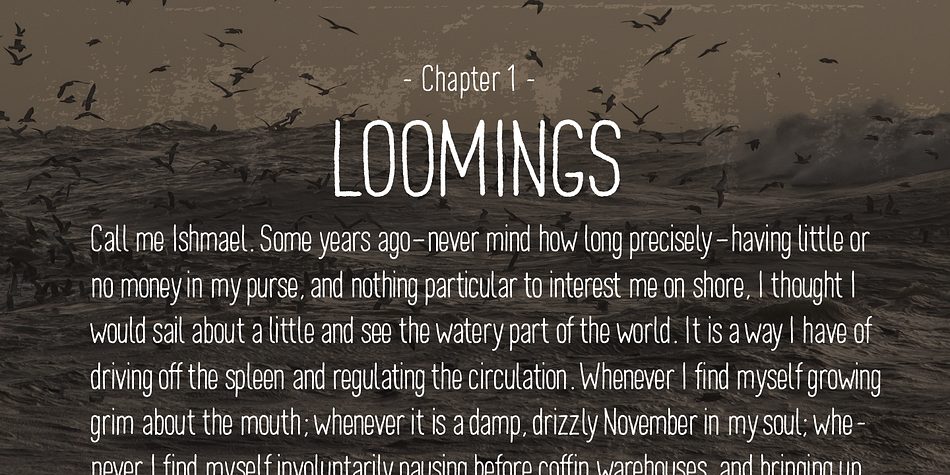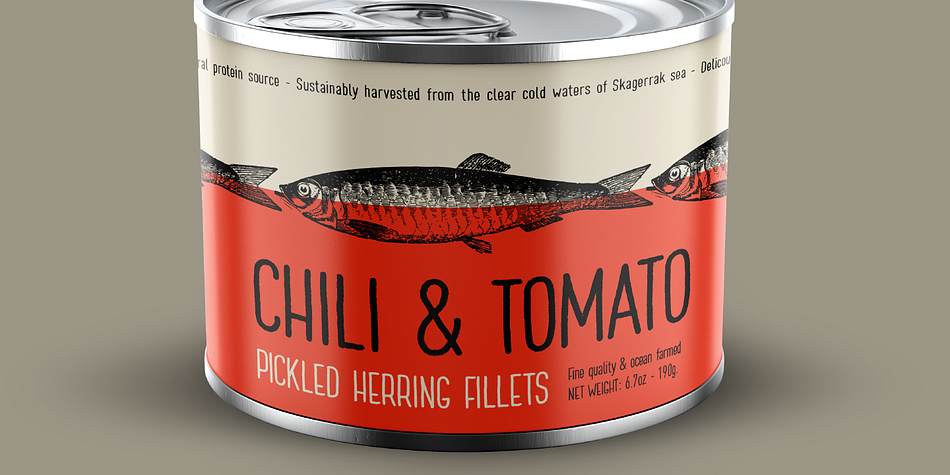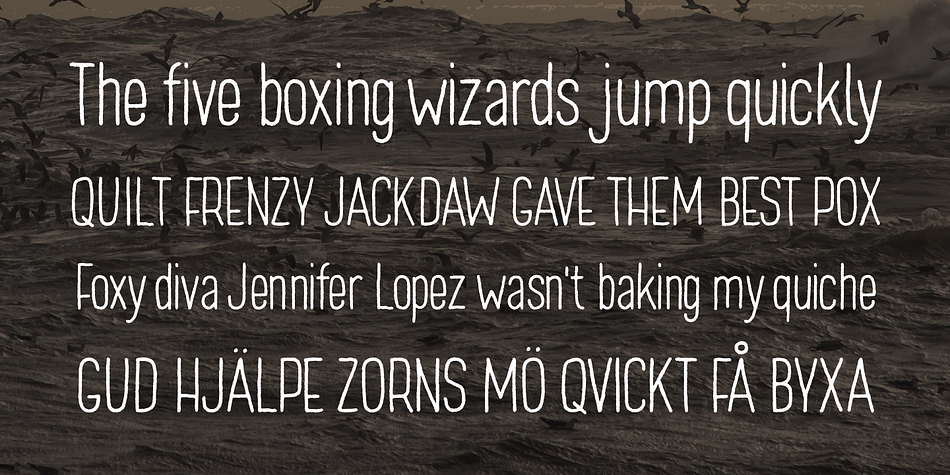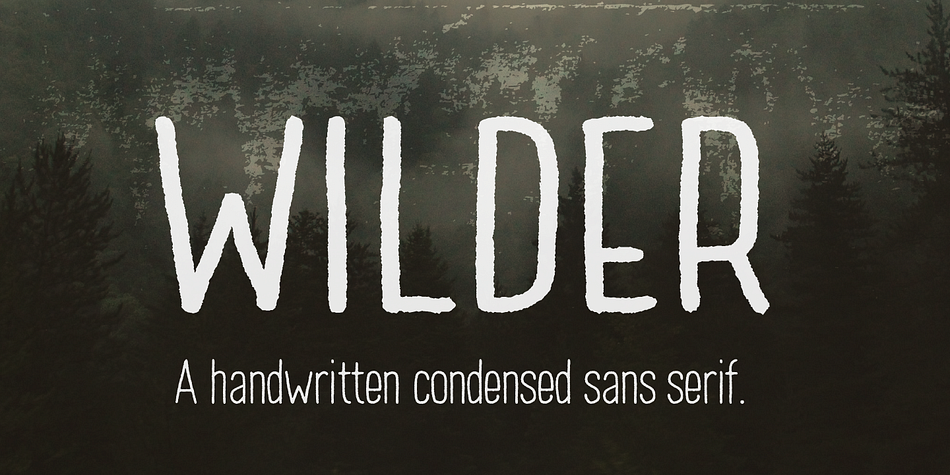
Designed by Daniel Feldt, Wilder is a hand drawn font family. This typeface has four styles and was published by Great Scott.
Wilder is a handwritten sans serif, rather condensed, in uppercase and lowercase and has 300+ glyphs and supports a wide selection of latin based languages.
Wilder comes in four styles: Regular, Oblique, Bold and Bold Oblique